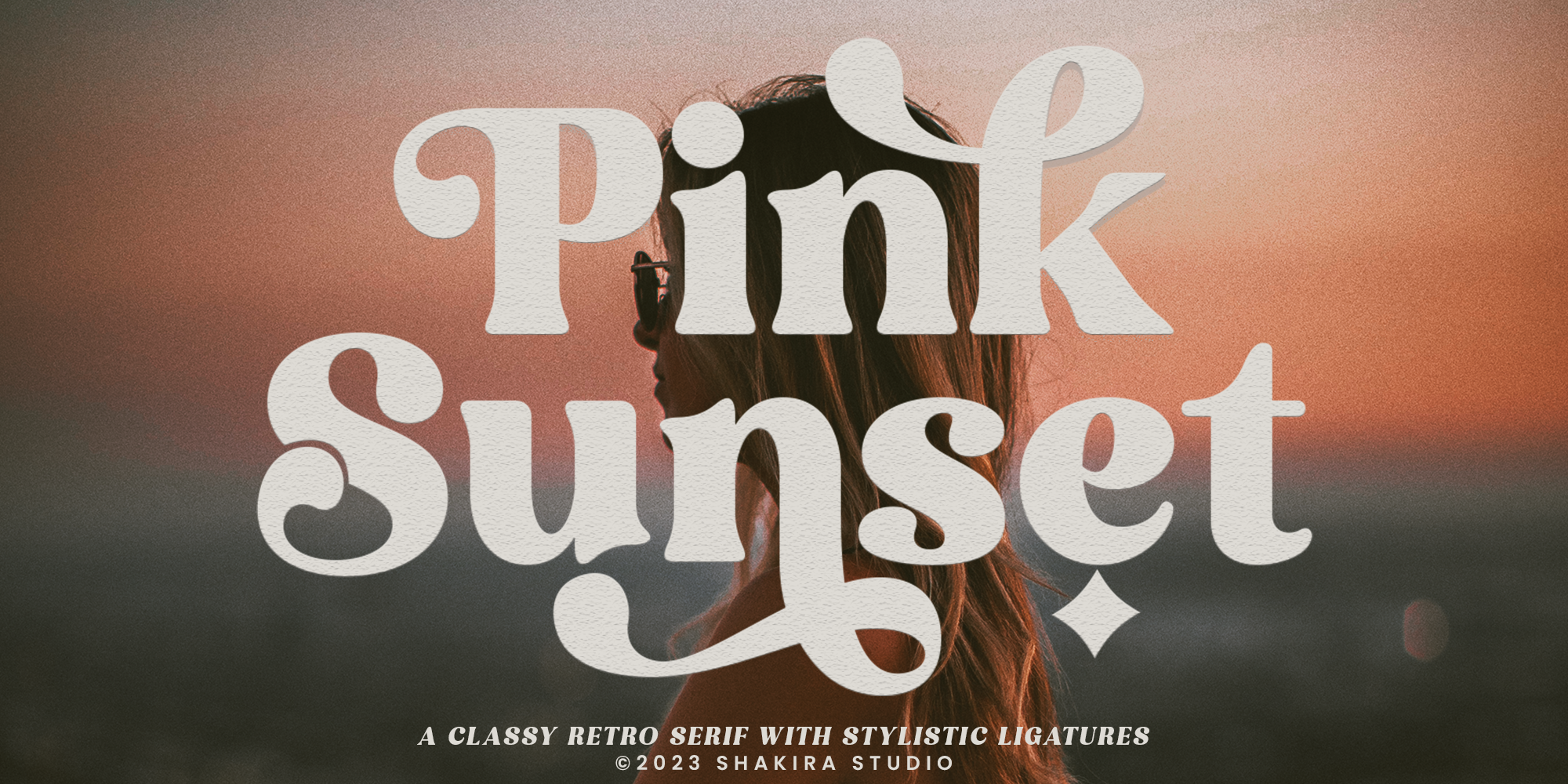
Pink Sunset Font is perfect for romantic wedding invitations, beauty salon branding, tropical resort marketing, sunset photography overlays, feminine lifestyle blogs, boutique fashion labels, dreamy social media graphics, spa and wellness centers, romantic greeting cards, and ethereal design projects that capture golden hour magic.
What makes Pink Sunset Font exciting is its ability to evoke the breathtaking beauty and romantic atmosphere of a perfect sunset through its soft, flowing letterforms that seem to glow with warm twilight colors. This enchanting typeface captures the essence of dreamy evenings and romantic moments with its graceful curves and gentle character. The font's ethereal quality creates an immediate sense of warmth, romance, and peaceful serenity.
The Pink Sunset Font family includes regular, light, and script variations that enhance its romantic versatility. Special sunset-inspired ornaments, heart symbols, and flowing decorative elements complement the main typeface, while delicate ligatures and swashes add elegant finishing touches for premium romantic applications and luxury branding projects.
Pink Sunset Font Free Download delivers exceptional beauty for projects requiring romantic appeal and dreamy aesthetics. Its carefully crafted letterforms maintain excellent readability while projecting an image of softness, elegance, and feminine charm. The font's versatile nature works beautifully for both intimate personal projects and sophisticated commercial branding.
Embrace the romantic glow of Pink Sunset Font and create designs that capture the magical beauty of golden hour moments with unmatched elegance and dreamy sophistication.